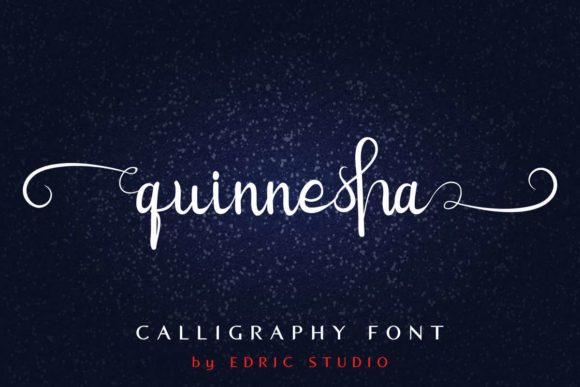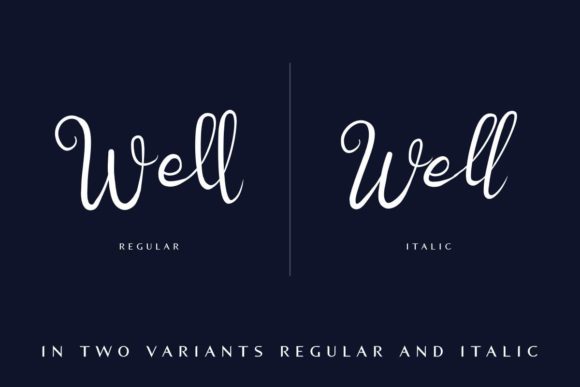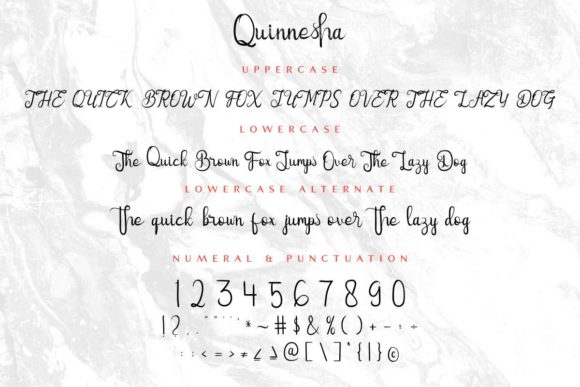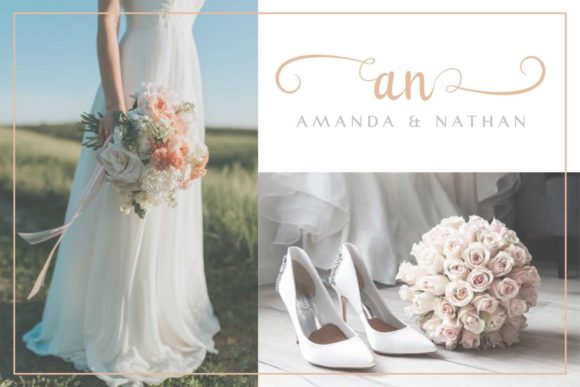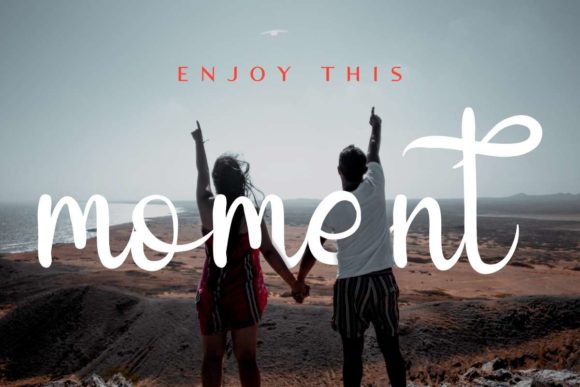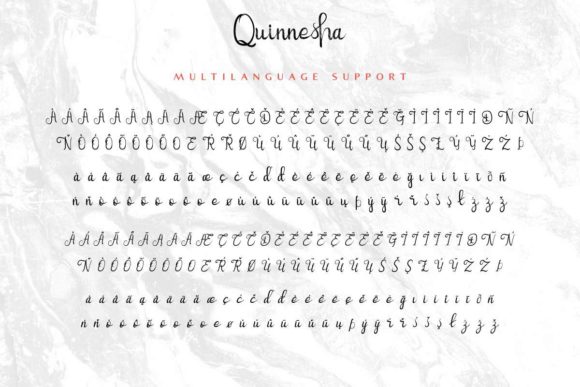
Introduction to Quinnesha Font
Meet Quinnesha Font, a gorgeous handwritten font full of life and character. With its unique flair and high-quality design, Quinnesha Font is the perfect design resource for any creative project. Whether you’re working on a personal or professional project, this font is sure to bring a touch of elegance and sophistication to your design.
Key Features of Quinnesha Font
- High-quality design resource with a unique, creative touch, perfect for artistic projects and presentations.
- Features a transparent background, making it ideal for overlaying text on images or using as a design element in creative projects.
- Includes a range of glyphs and characters, making it a versatile font suitable for a variety of design applications.
- Designed to be highly legible, even at small font sizes, making it perfect for use in body text, headings, and titles.
Honest Review: Quinnesha Font
I recently stumbled upon the Quinnesha Font, a free design resource that has been gaining popularity among creatives. Upon closer inspection, I must say I’m impressed with its versatility and aesthetic appeal.
- ✨ High-quality design that exudes elegance and sophistication
- ✨ Clean and minimalist style that’s perfect for creative projects
- ✨ Easy to read, even on a transparent background
However, as with any design resource, there are some limitations to consider.
- ⚠️ Limited font styles and variations, which may not be ideal for complex designs
- ⚠️ Not suitable for highly technical or scientific projects due to its simplicity
Overall, I’d say the Quinnesha Font is a solid addition to any designer’s toolkit. While it may not be perfect for every project, its high-quality design and ease of use make it a great resource for creatives looking for a simple, yet effective font.
To get the most out of Quinnesha Font, use it for headings and titles in your designs, where its unique style can make a significant impact. Common use cases include branding materials, social media graphics, and marketing materials.